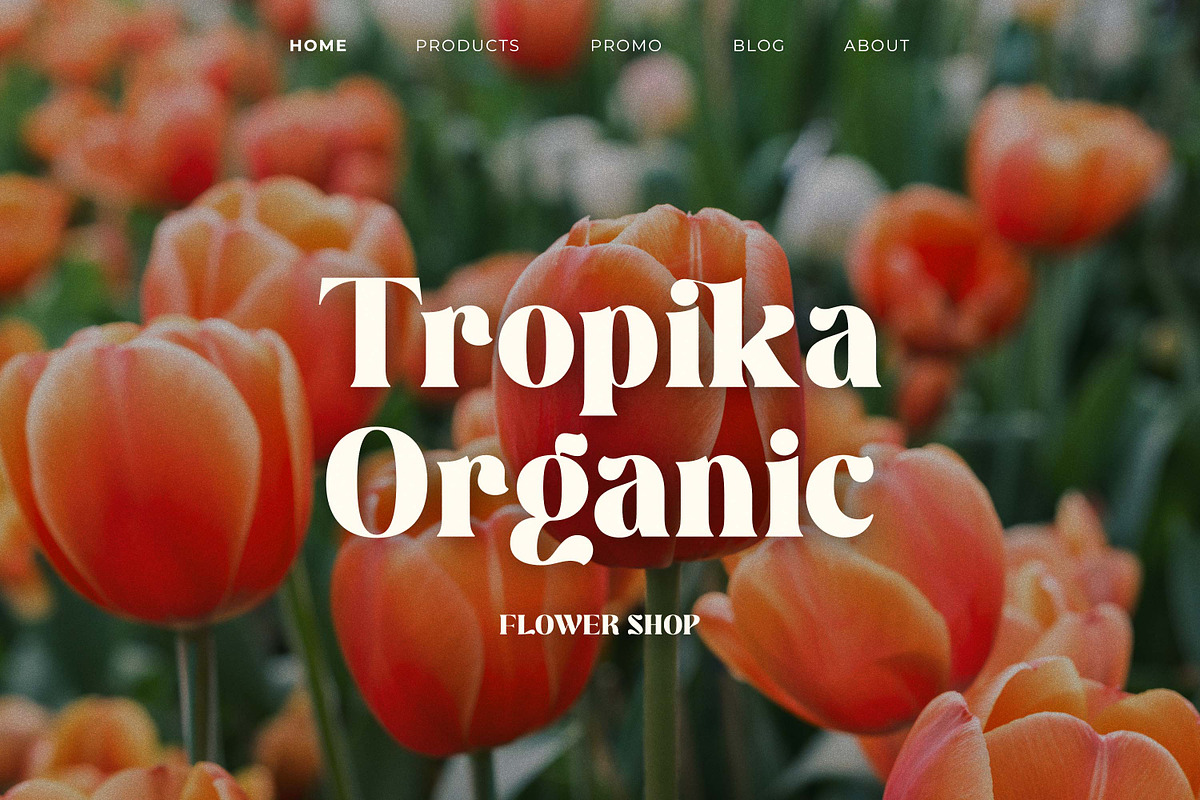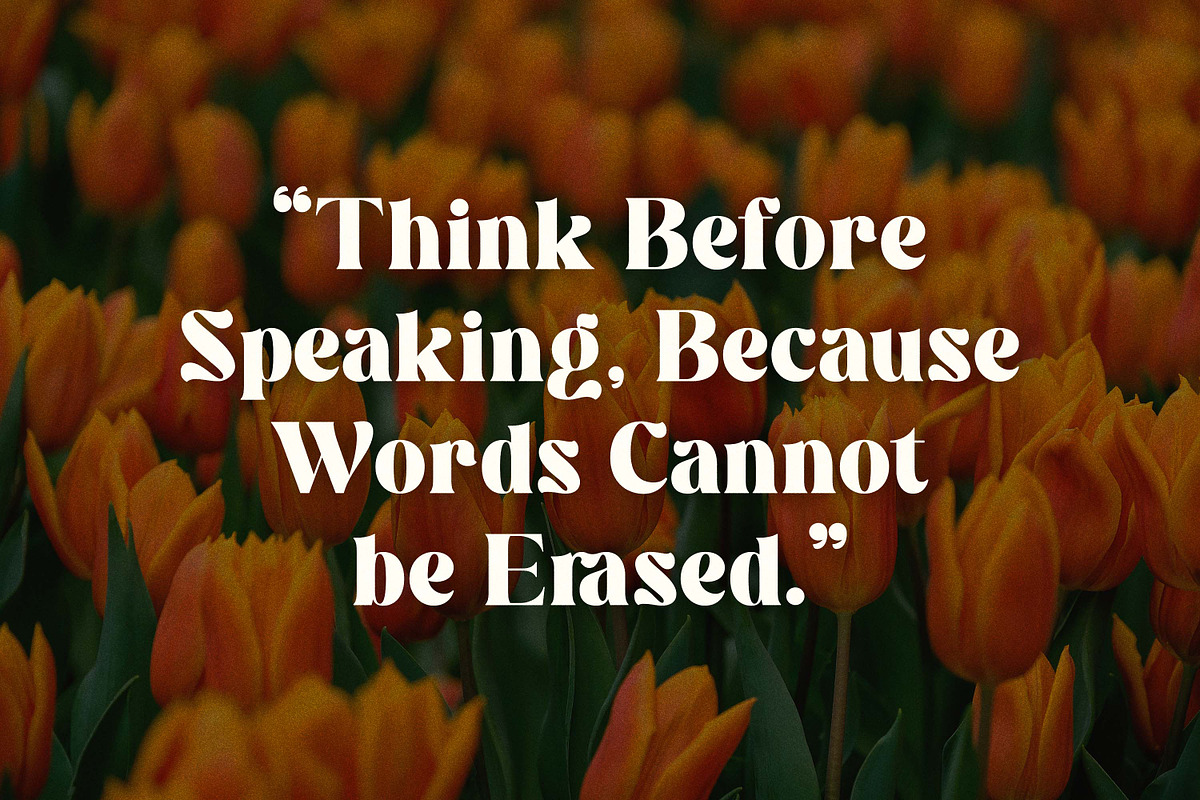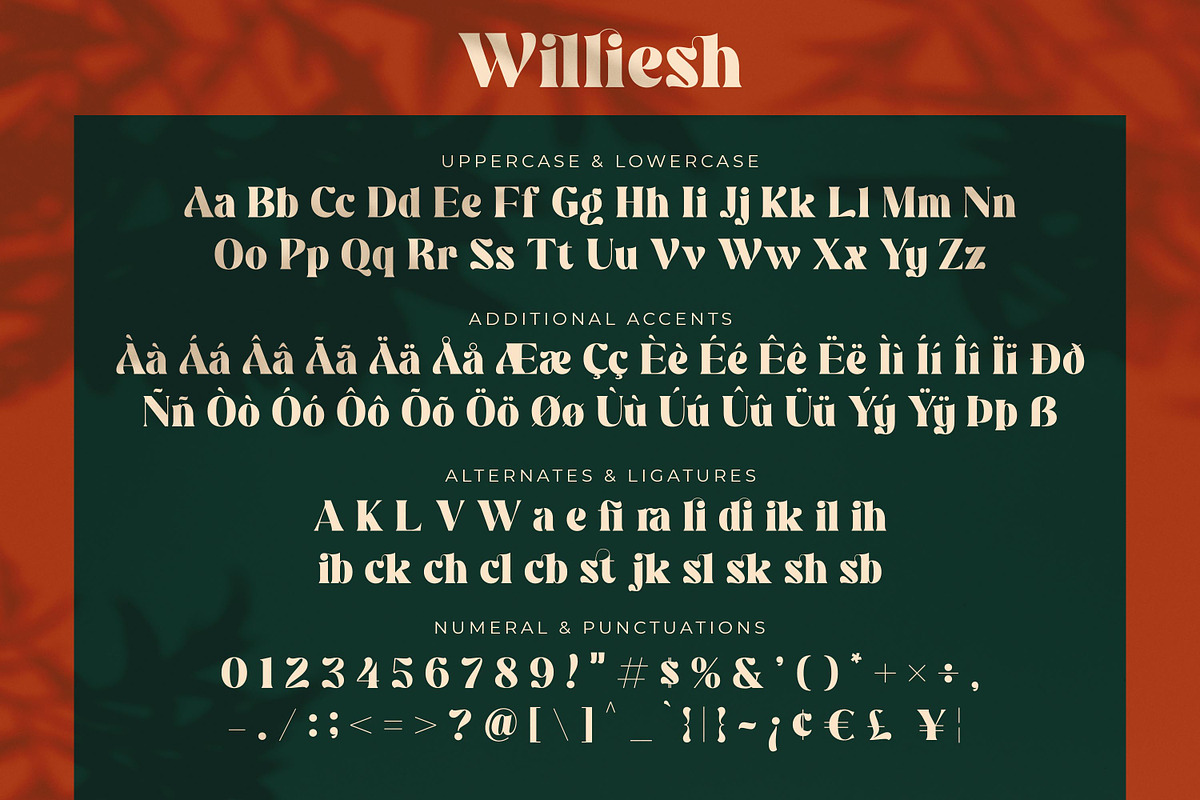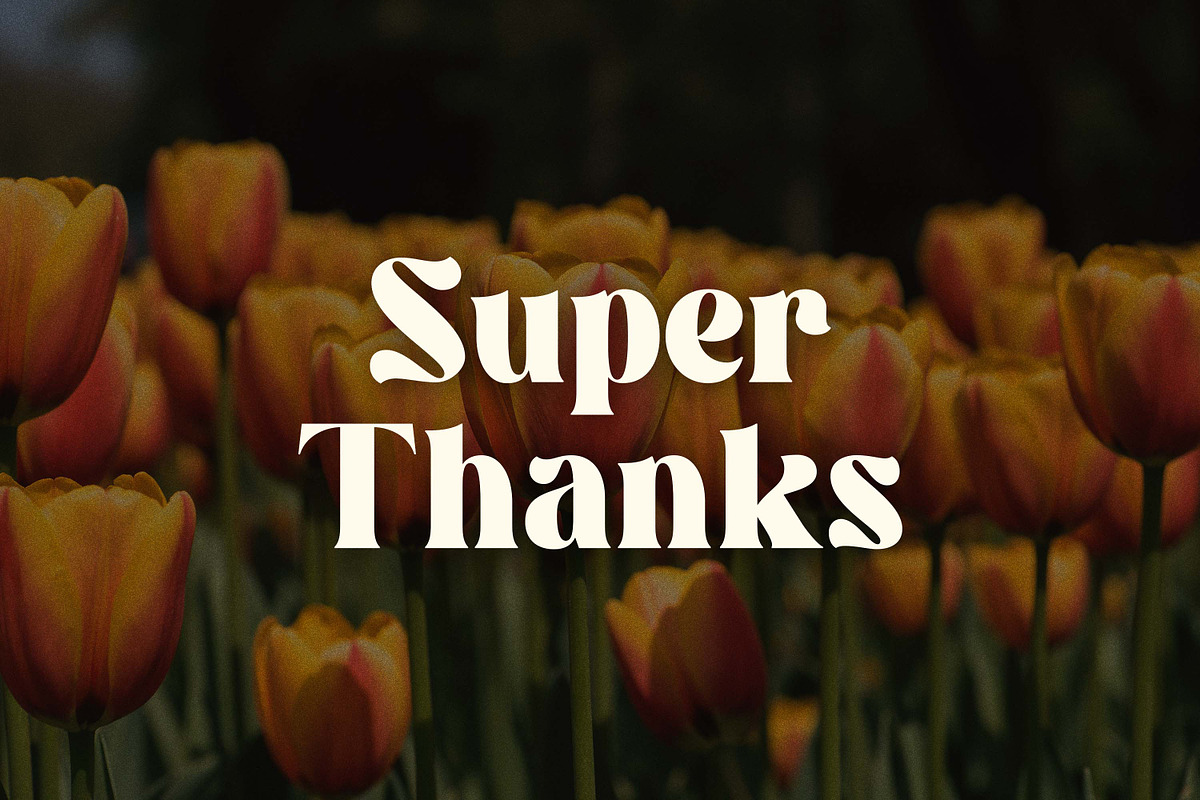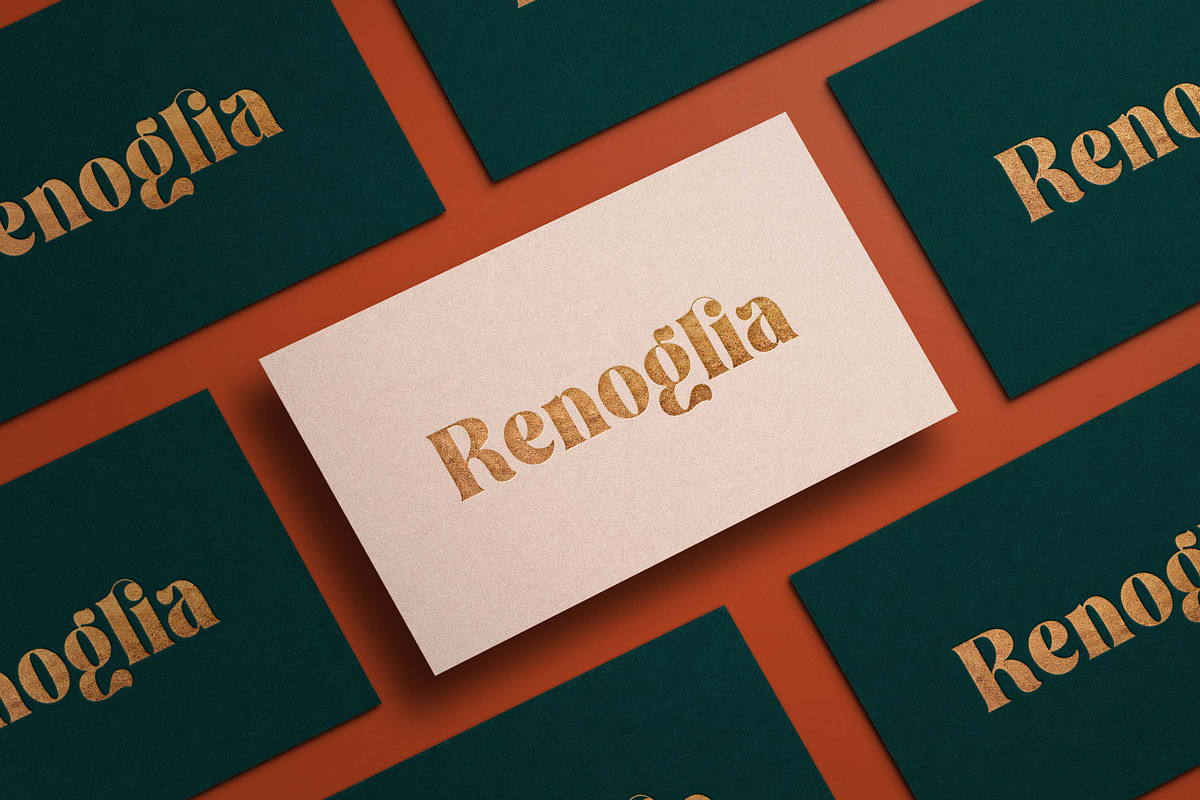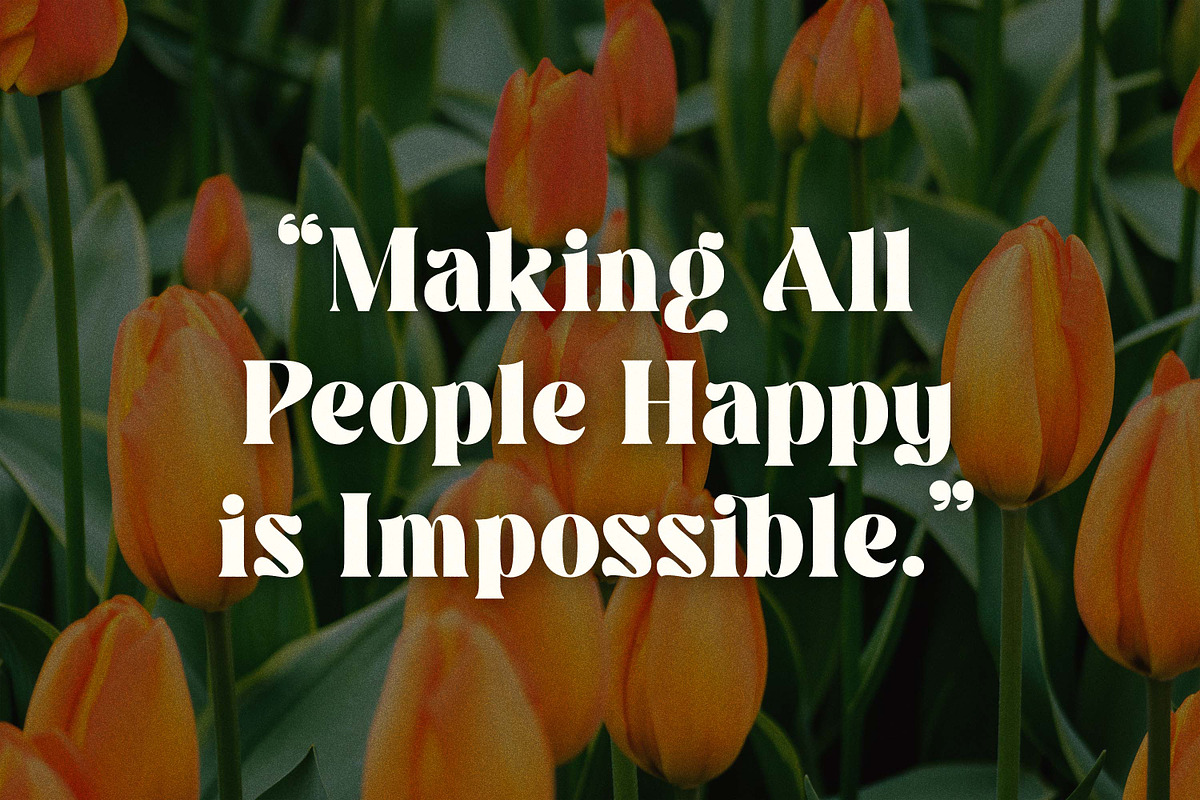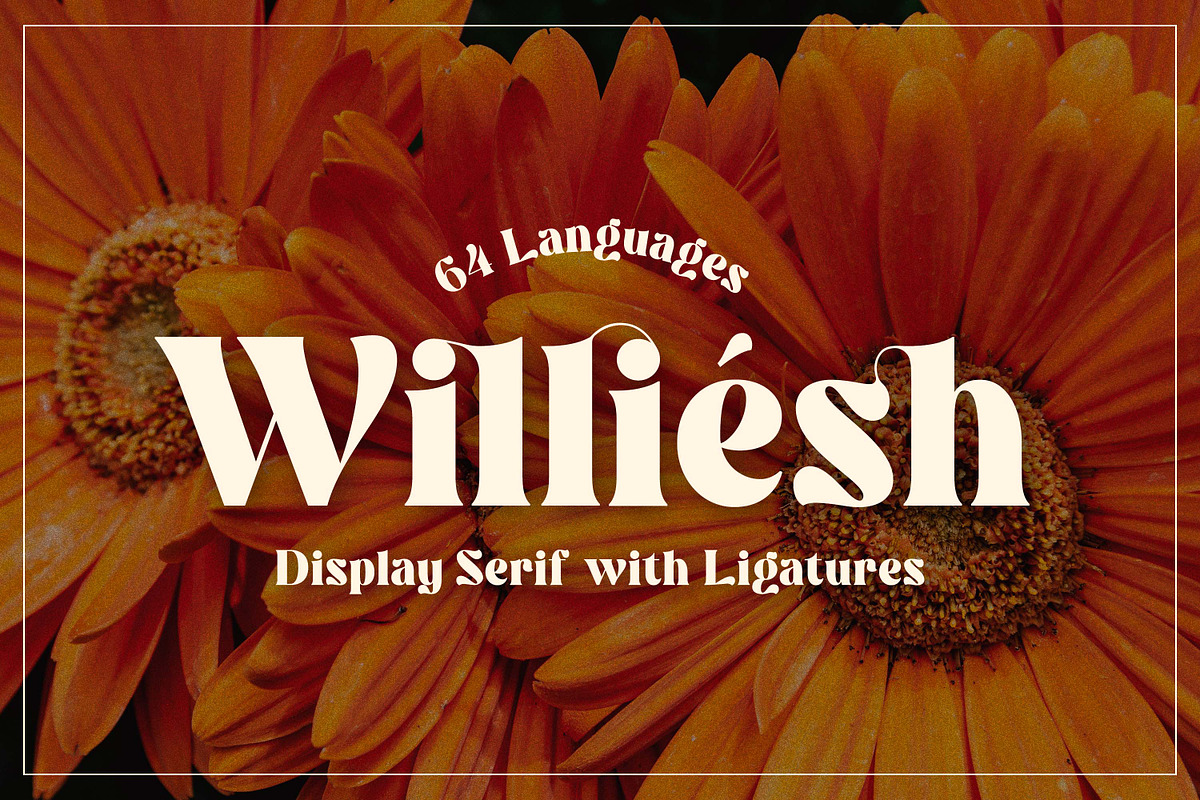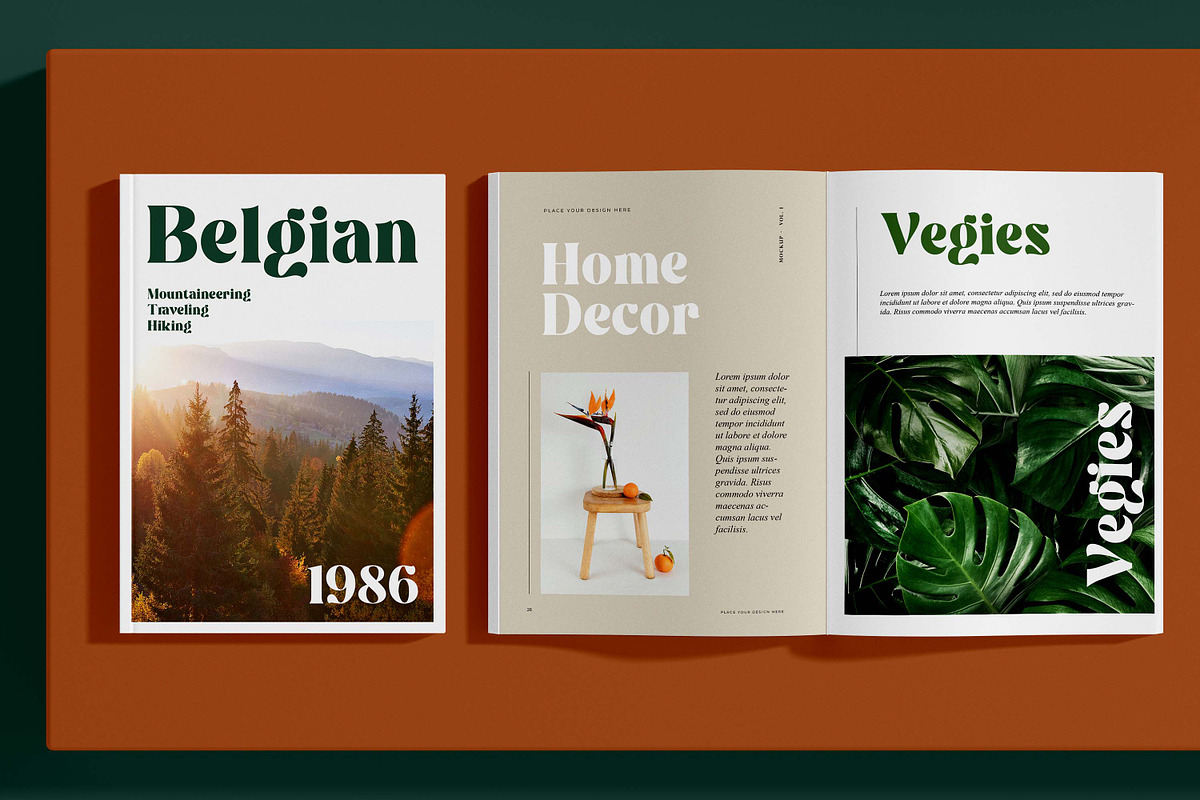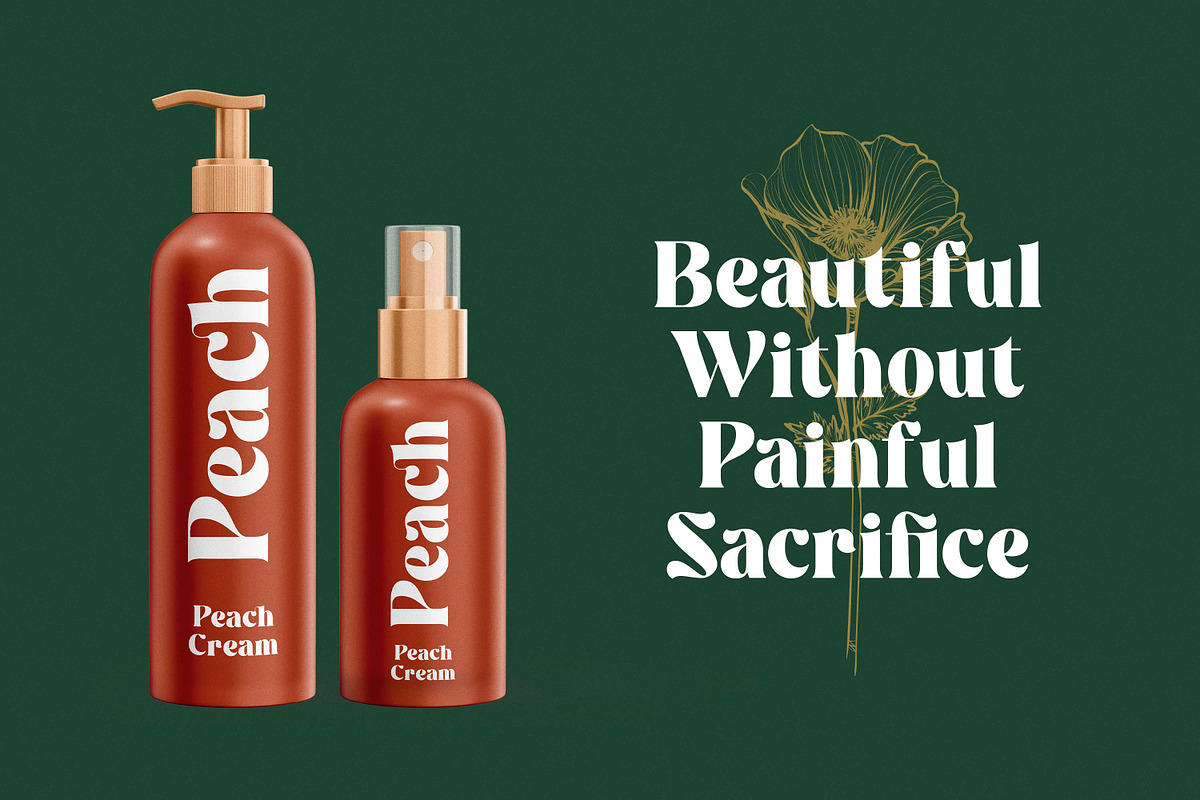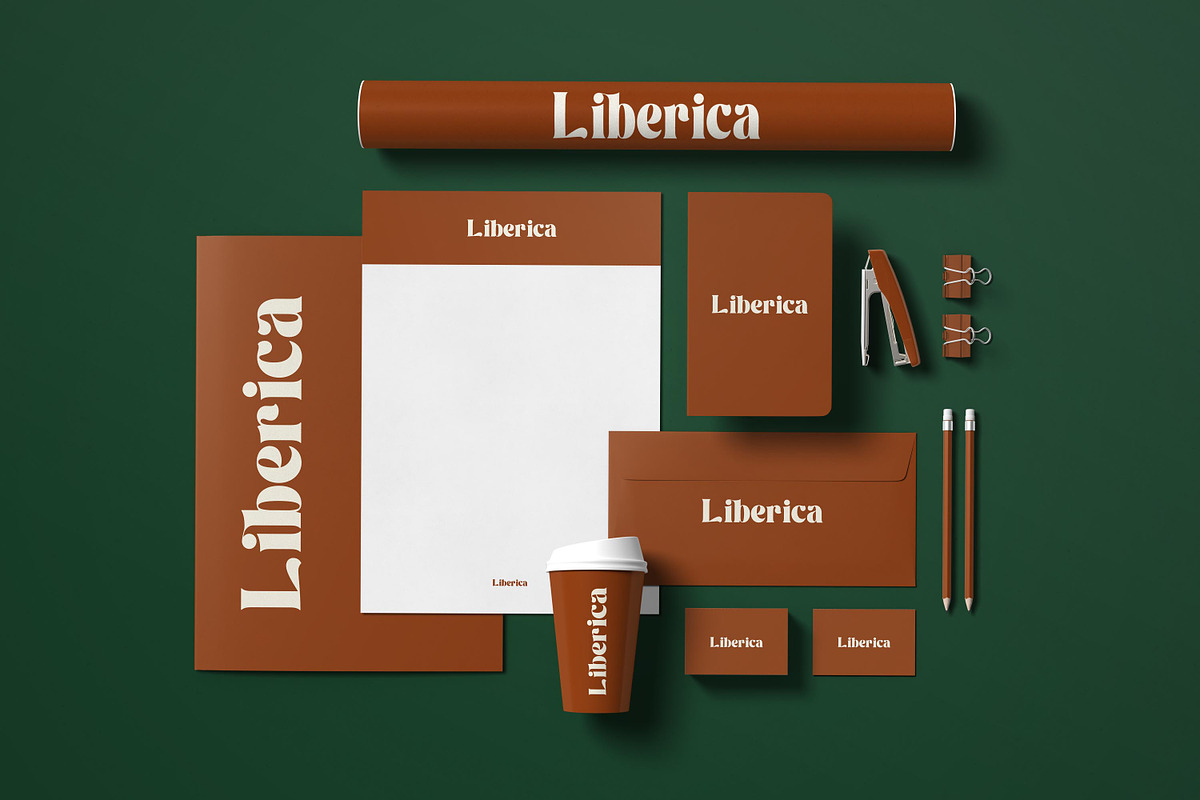
Williesh - Unique Display Serif
Hello Introducing, Williesh - Unique font that uses ligatures to smoothly link letters. inspired by the famous minimalist logo, perfect for the purposes of designing templates, brochures, videos, advertising branding, logos and more. Perfect for adding a unique twist to word-mark logos, monograms or pull quotes. Kavaloora has 18 unique ligatures and Alternate Glyphs as well as numbers and punctuation making it super fantastic.